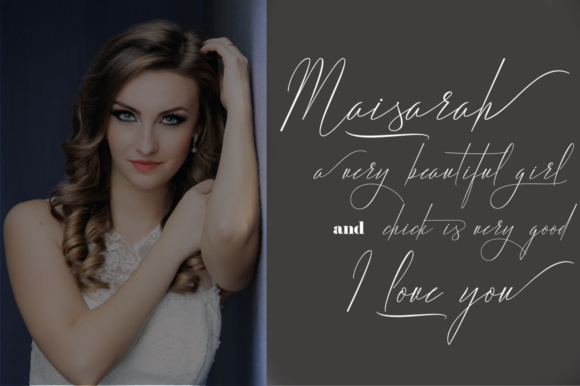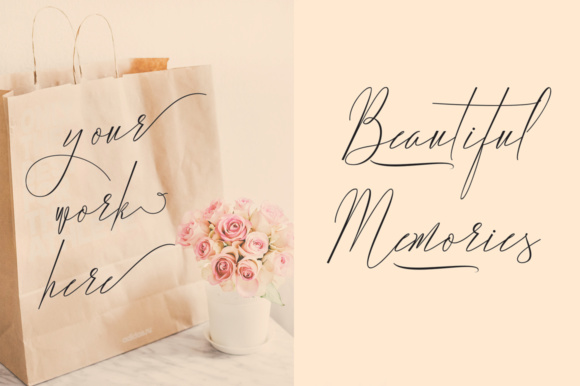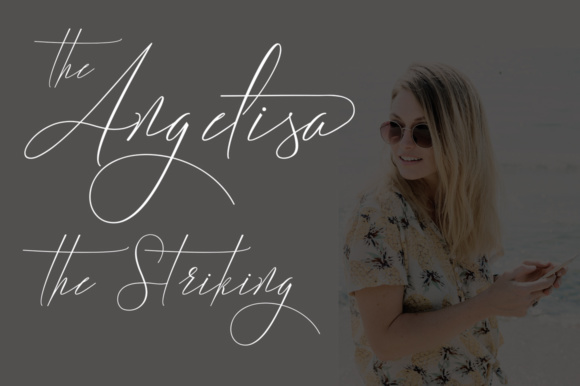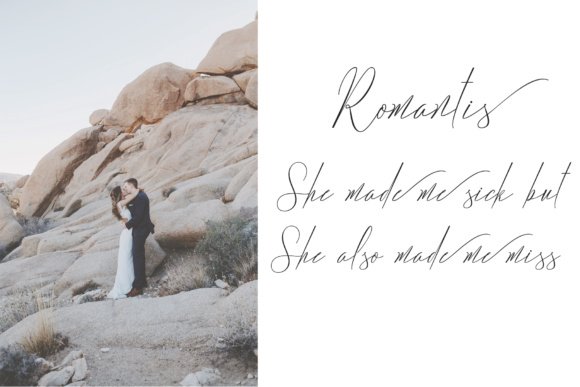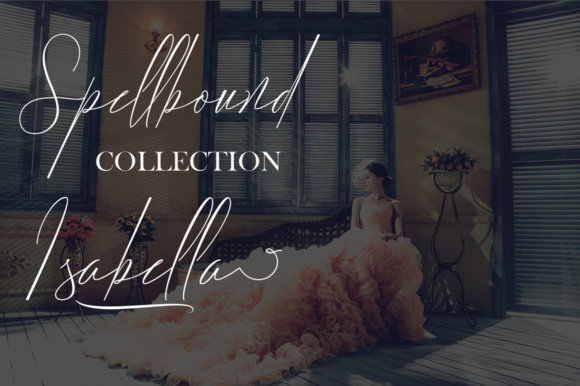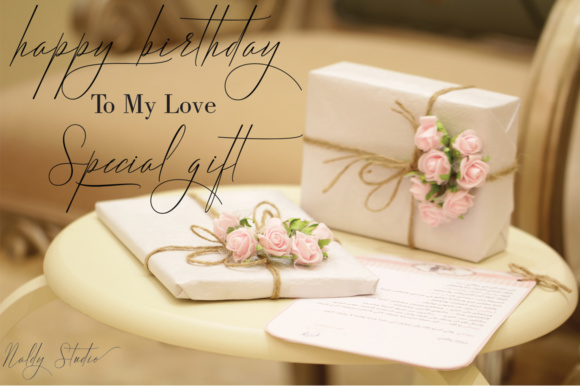
Better Font: Elevate Your Designs with Luxurious Calligraphy
In the world of design, typography plays a crucial role in conveying the tone and aesthetic of a project. When it comes to creating luxurious and high-end designs, the right font can make all the difference. Introducing Better Font, a delicate and swashy calligraphy font that’s perfect for designers and crafters looking to add a touch of elegance to their work.
What is Better Font?
Better Font is a beautiful script font that exudes sophistication and refinement. Its swashy strokes and intricate details make it an ideal choice for projects that require a luxurious and expensive look. Whether you’re working on a branding campaign, packaging design, or stationery, Better Font is sure to elevate your designs to the next level.
Key Features of Better Font
- Delicate and Swashy Strokes: Better Font features delicate and swashy strokes that add a touch of elegance to any design.
- Luxurious and Expensive Look: The font’s intricate details and refined lines give it a luxurious and high-end feel.
- Versatile: Better Font is suitable for a wide range of projects, from print materials to digital designs.
- Elegant and Refined: The font’s classic and timeless design makes it perfect for designers and crafters looking to create sophisticated designs.
Use Cases for Better Font
Better Font is an incredibly versatile font that can be used in a variety of projects, including:
- Branding and Logo Design: Use Better Font to create a luxurious and memorable brand identity.
- Packaging Design: Add a touch of elegance to your packaging designs with Better Font.
- Stationery and Invitations: Create beautiful and sophisticated stationery and invitations with Better Font.
- Advertising and Marketing Materials: Use Better Font to create eye-catching and high-end advertising and marketing materials.
Tips for Using Better Font
To get the most out of Better Font, here are a few tips to keep in mind:
- Use it Sparingly: Better Font is a statement font, so use it sparingly to avoid overwhelming your design.
- Pair it with a Simple Font: Pair Better Font with a simple font to create contrast and visual interest.
- Experiment with Colors: Better Font looks stunning in metallic colors, so don’t be afraid to experiment with different colors and gradients.
Better Font is a stunning calligraphy font that’s perfect for designers and crafters looking to add a touch of luxury to their work. With its delicate and swashy strokes, luxurious and expensive look, and versatility, Better Font is an excellent choice for a wide range of projects. Whether you’re working on a branding campaign, packaging design, or stationery, Better Font is sure to elevate your designs to the next level.